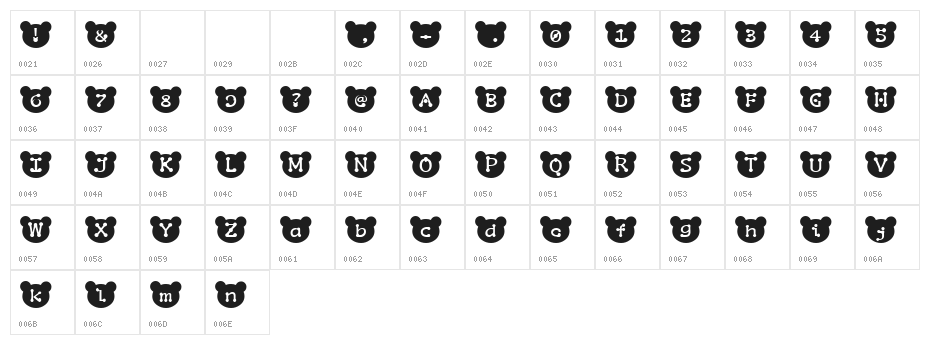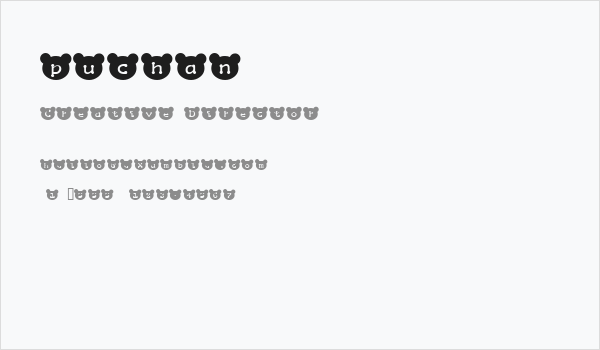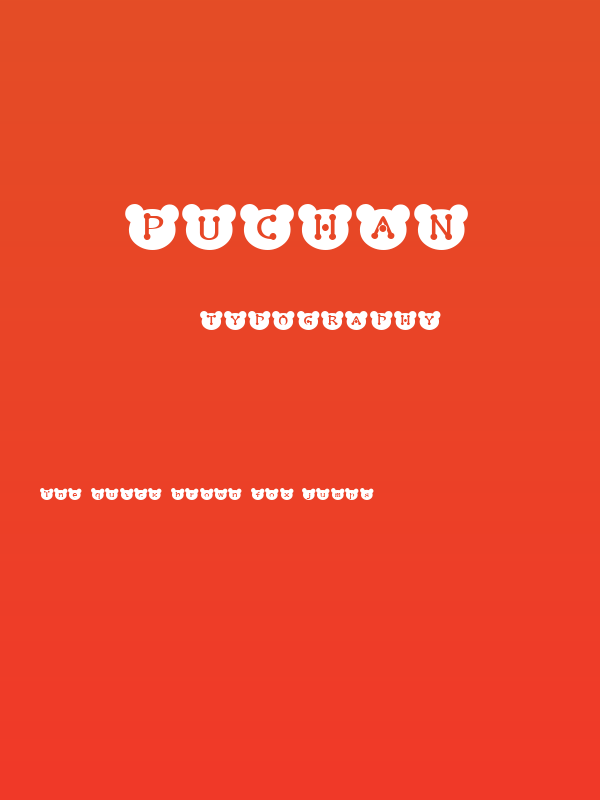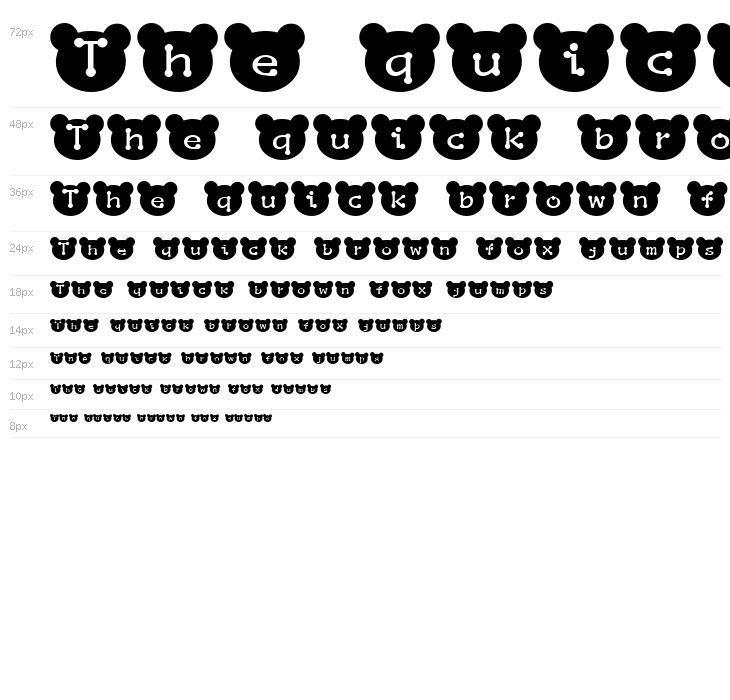
puchan Font
puchan Description
This playful and whimsical font features characters enclosed within bear-shaped silhouettes, creating a unique and charming appearance. The uppercase and lowercase letters, as well as numbers and special characters, are all designed with this distinctive bear motif. The font combines a decorative style with a sense of fun, making it ideal for projects aimed at children or those seeking a lighthearted touch. The characters are bold and well-defined, ensuring readability despite the intricate design. The font's overall style is both modern and decorative, with a strong emphasis on creativity and visual appeal.
| Overall Style | Playful, Decorative |
| Use Case | Logos, Headlines, Children's materials |
| Proposed Projects | Ideal for children's books, playful branding, toy packaging, and themed party invitations. |